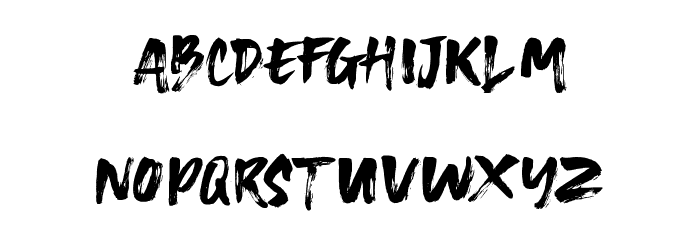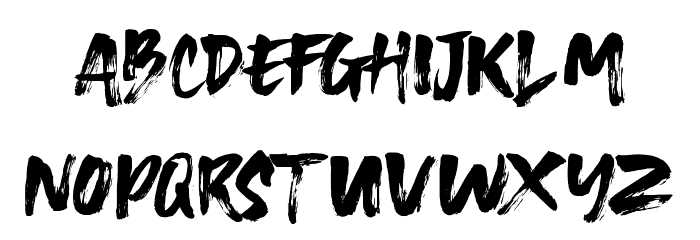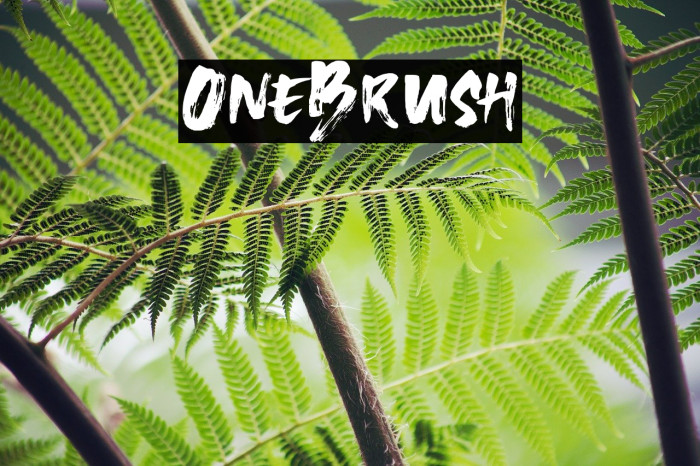
OneBrush Font
This font exudes a bold and dynamic brushstroke style, characterized by its thick, uneven strokes that mimic the natural flow of hand-painted lettering. The letters have a raw, energetic feel, with varying stroke widths that add depth and texture. The uppercase and lowercase letters maintain a consistent style, with a slightly condensed form that enhances readability while preserving the artistic flair. The numbers and special characters are crafted with the same attention to detail, ensuring a cohesive look across all elements. This font is perfect for projects that require a touch of creativity and boldness, making it ideal for artistic and expressive designs.
A bold, brushstroke-style font with dynamic, uneven strokes and artistic flair.